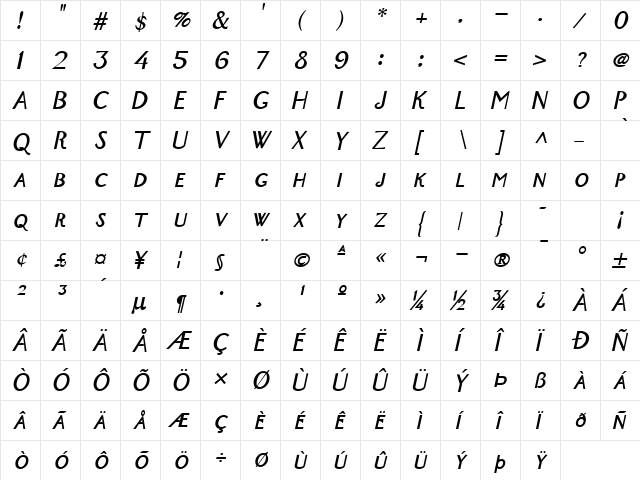
New-York Bold Italic
Design Context for New-York Typeface
New-York offers clean, dependable letterforms without strong stylistic allegiance, making it a practical choice for designers who need flexibility. The dynamic lean of this cut emphasises speed and emphasis in any layout. Its bold stroke weight gives it real presence on the page.
Pro Tip: Try New-York for annotation and caption copy alongside an upright companion — the contrast in angle creates a dynamic but ordered typographic system.